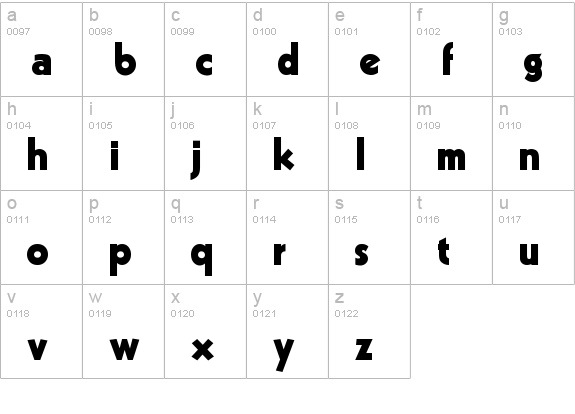
Bear Font Details
Bear font is a bold and powerful typeface that exudes strength and confidence. With its thick, sturdy lines and sharp edges, this font is perfect for making a statement in your designs. Whether you're looking to create eye-catching headlines or add a touch of ruggedness to your projects, Bear font is sure to leave a lasting impression. Best of all, Bear font is available for free download at FontsMarket.com. This means you can easily add this striking typeface to your collection without breaking the bank. Don't miss out on the opportunity to enhance your designs with the bold and commanding presence of Bear font. Download it today and unleash its untamed potential in your creative projects.